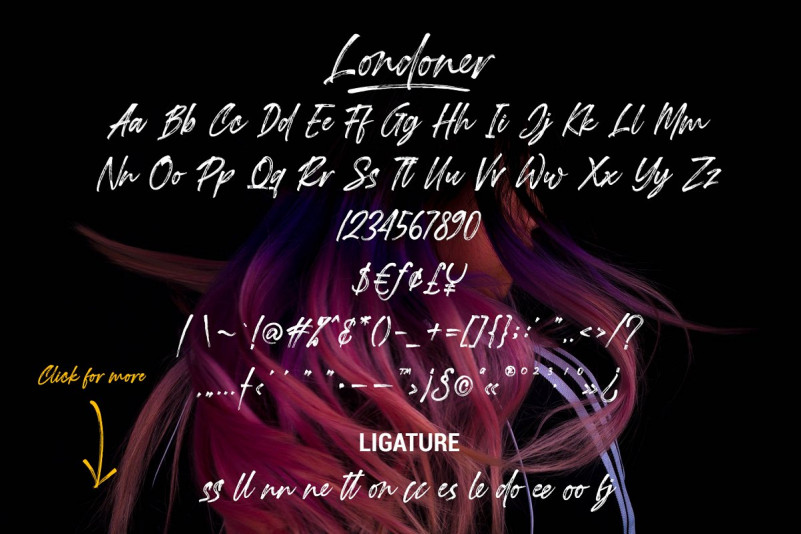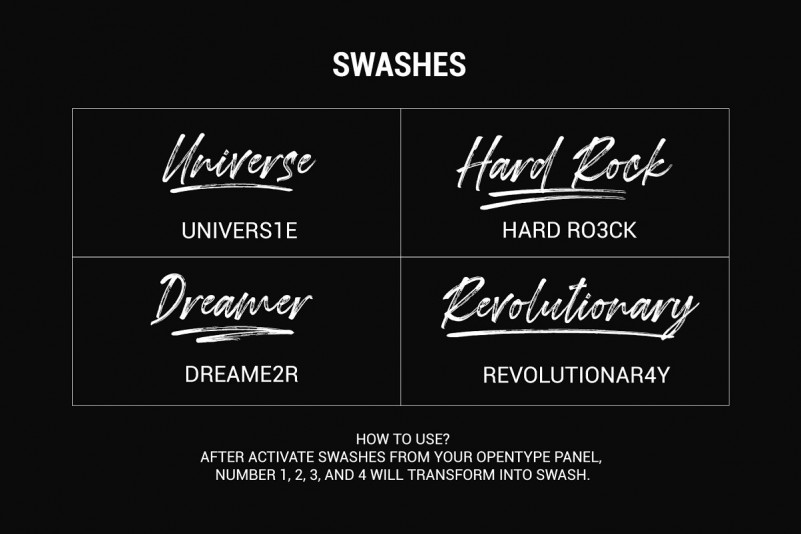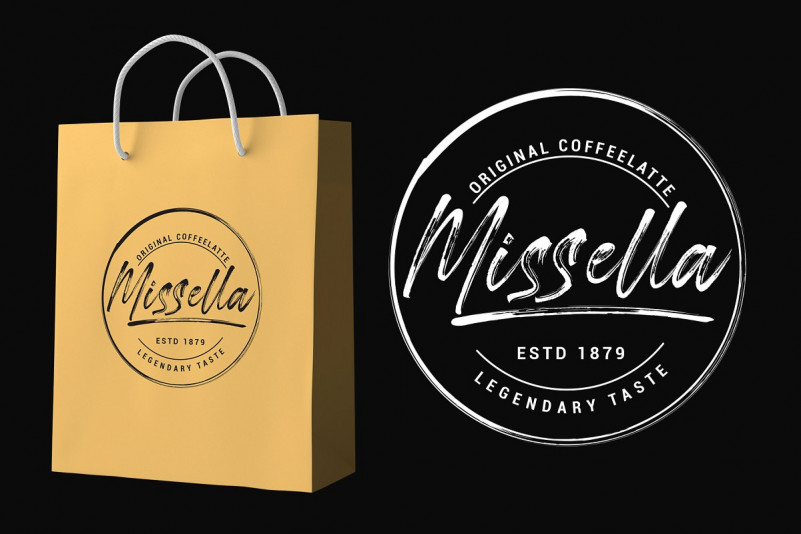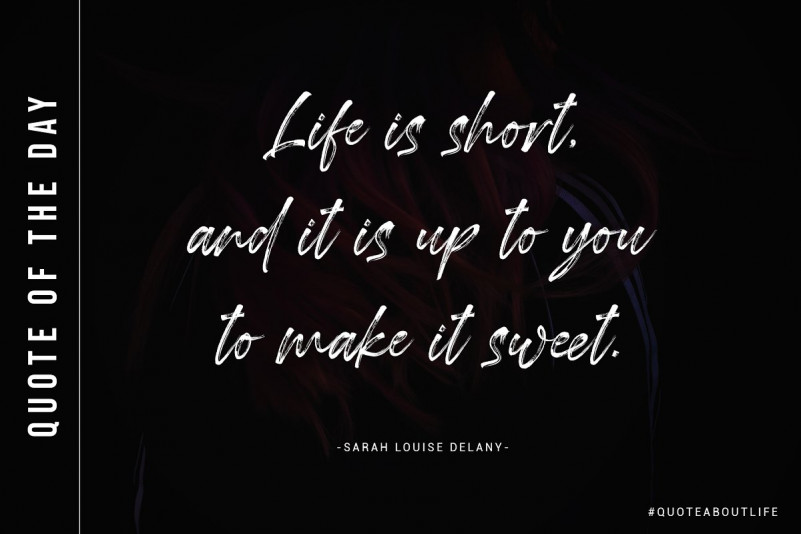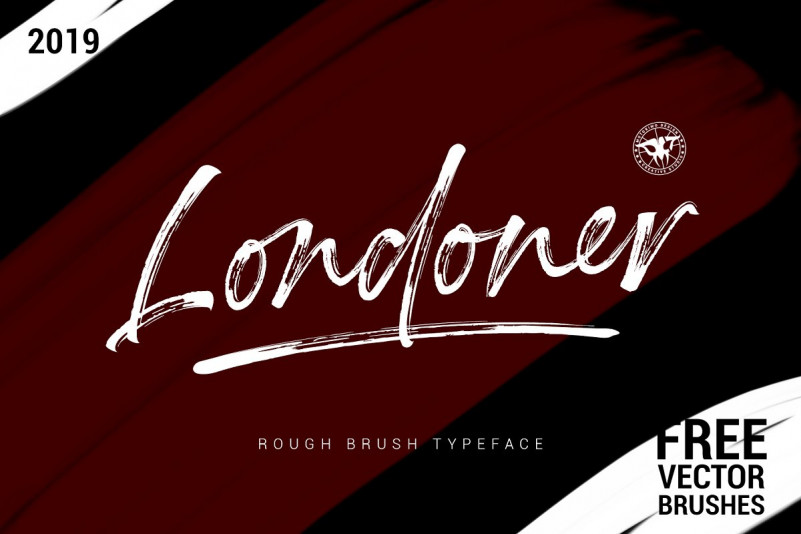
Londoner Brush Font
Londoner Font – Free Demo
Hello.. Welcome again! Introducing Londoner Brush Font! This is handwritten made with a brush pen, this font will tear through your text with unmistakable energy, dynamic and spontaneous flow. It is designed and shared by Motokiwo. Londoner is handwritten font with dry brush texture. It created directly with my marker vector brush, all process is digitally. You can get the vector brushes include as a bonus in this font pack. Londoner is suitable for logo, product branding, or for text overlay to any background image.